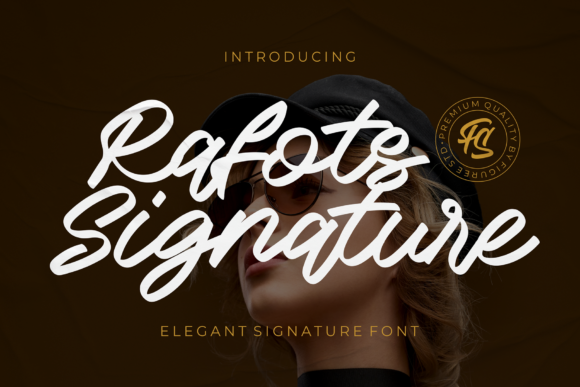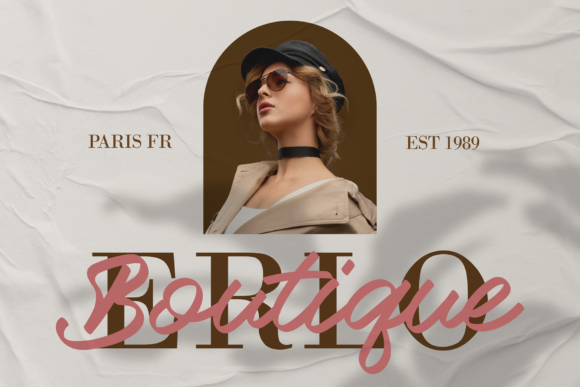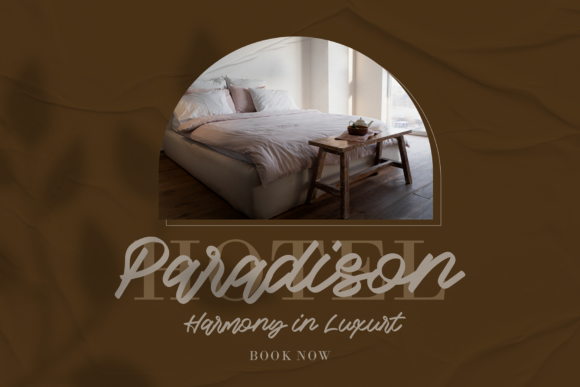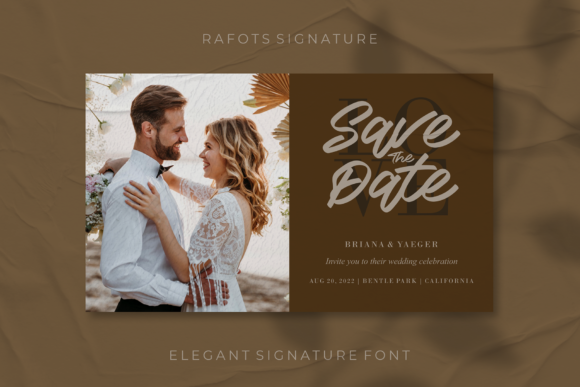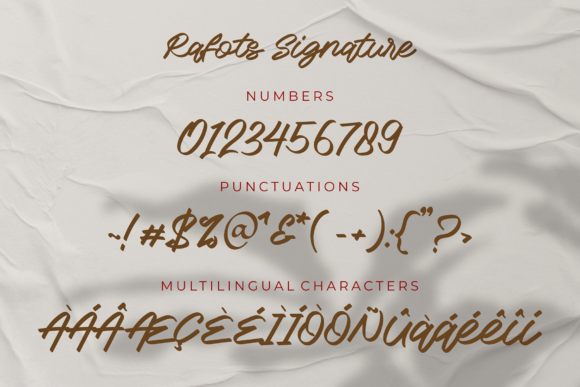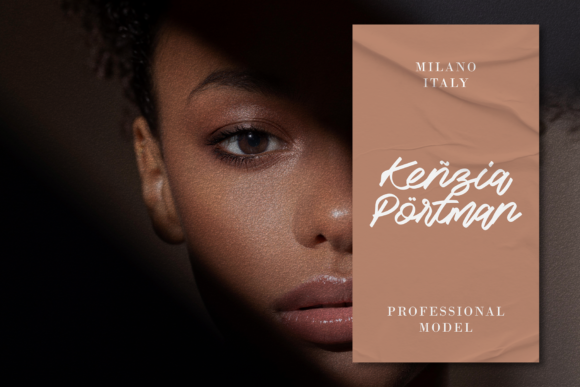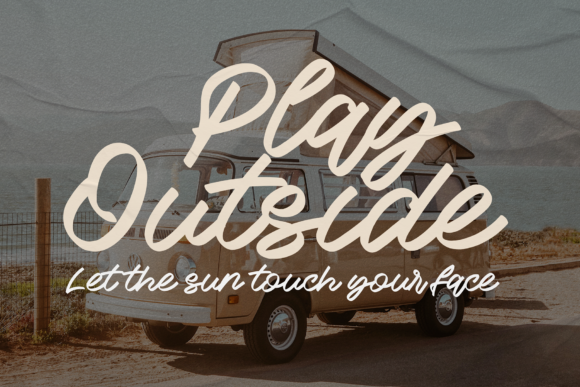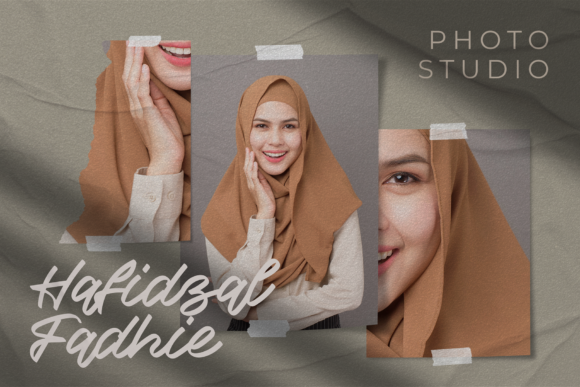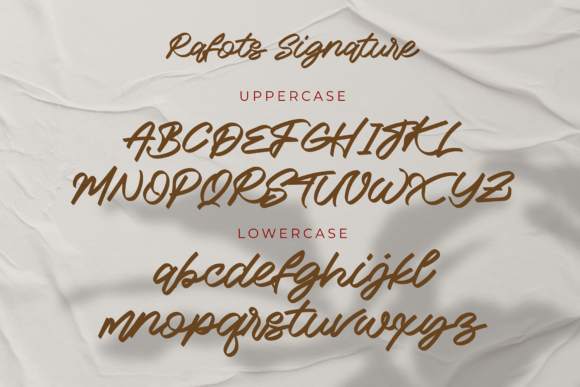
Rafots Signature Font
“Rafots Signature” is a fashion-forward and exquisitely delicate script font that adds a touch of elegance to any project it graces. Its stylish and refined strokes make it a versatile choice for a wide range of design endeavors, from logos and branding projects to labels, photography watermarks, and special events.
When employed in logos, “Rafots Signature” lends an air of sophistication and artistry to your brand’s identity. Its flowing and graceful letterforms create a memorable and visually appealing mark that captures the essence of your business.
For branding projects, “Rafots Signature” infuses a sense of luxury and distinctiveness into your products or services. Whether it’s on packaging, business cards, or promotional materials, the font’s exquisite style adds a touch of refinement that resonates with your target audience.
In the realm of labels and photography watermarks, “Rafots Signature” acts as a signature of authenticity and quality. Its intricate and beautiful script taste elevates your visuals, creating a professional and polished look that leaves a lasting impression.
Special events, such as weddings and celebrations, become even more enchanting with the addition of “Rafots Signature.” The font’s delicate and fashionable appearance adds a romantic and personalized touch to invitations, stationery, and event decorations.
No matter the project, “Rafots Signature” exudes a sense of beauty and charm that elevates the overall aesthetic. Its versatility allows it to shine in a variety of contexts, from digital to print, ensuring that your designs stand out with an air of elegance.
With “Rafots Signature,” every curve and flourish is meticulously crafted to create a sense of artistry and refinement. This attention to detail guarantees that your projects will exude a sense of sophistication and grace that captivates your audience.
To sum up, “Rafots Signature” is more than just a font – it’s a statement of elegance and style. Its fashionable and delicate script taste transforms logos, branding projects, labels, photography watermarks, and special events into visual masterpieces that leave a lasting impression.